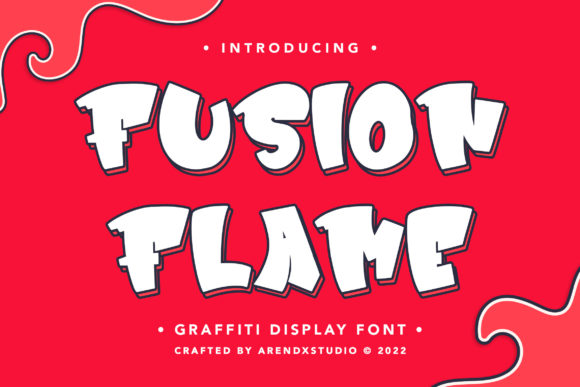
Introducing Fusion Flame Font, a bold and captivating display font that captures the essence of street art, embodying freedom and individuality. This remarkable font belongs to the display font family, making it perfect for creating striking headlines, logos, posters, and social media graphics that demand attention.
Immerse yourself in the world of graffiti and comic lettering with Fusion Flame Font. Its unique design, inspired by urban art, adds a touch of rebellion and authenticity to your projects. Unleash your creativity and let your words ignite the imagination of your audience.
With Fusion Flame Font, you can effortlessly craft designs that resonate with the youthful, energetic spirit of street culture. Its bold, graffiti-like strokes convey a sense of freedom and nonconformity, making it the ideal choice for expressing your artistic vision.
Whether you're a seasoned designer, an aspiring artist, or simply someone looking to make a statement, Fusion Flame Font is the perfect tool to add an edgy, urban aesthetic to your work. Its versatility shines through its ability to blend seamlessly with various design styles, from retro to modern, ensuring that your creations will always stand out.
Don't settle for ordinary fonts that fail to convey your message with impact. Embrace the vibrancy of Fusion Flame Font and watch as your words transform into captivating works of art. Let your designs radiate the raw energy of street culture and leave a lasting impression on your audience.